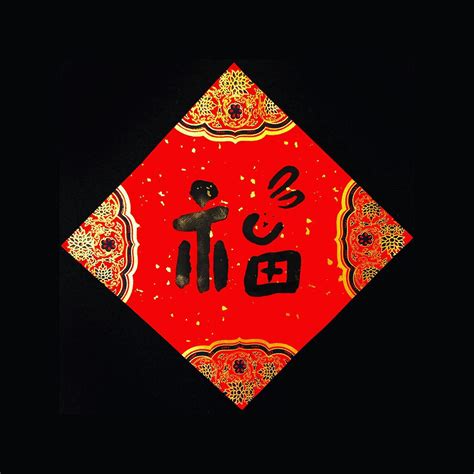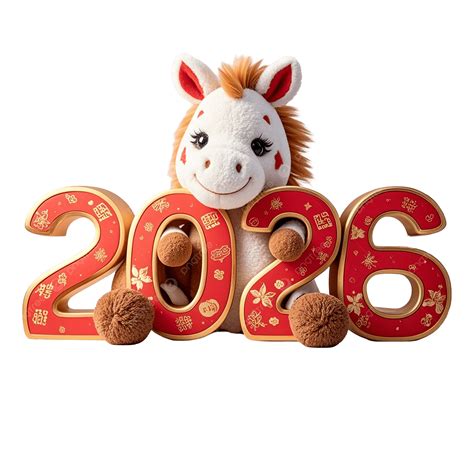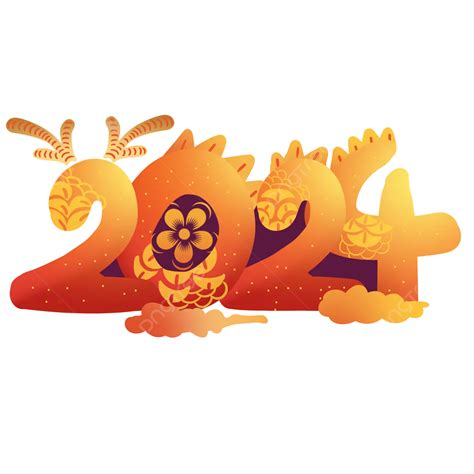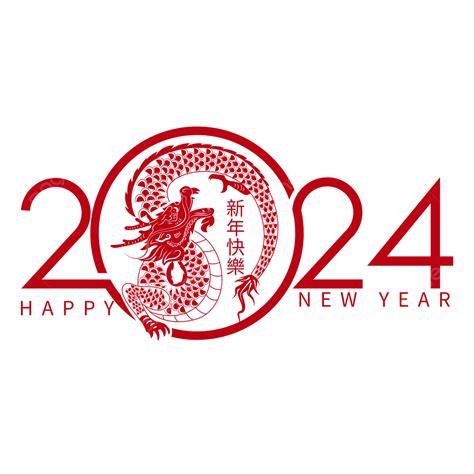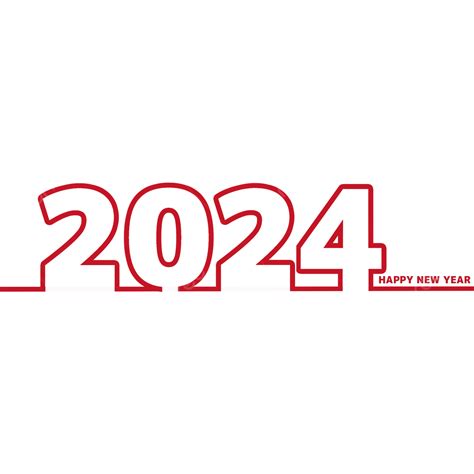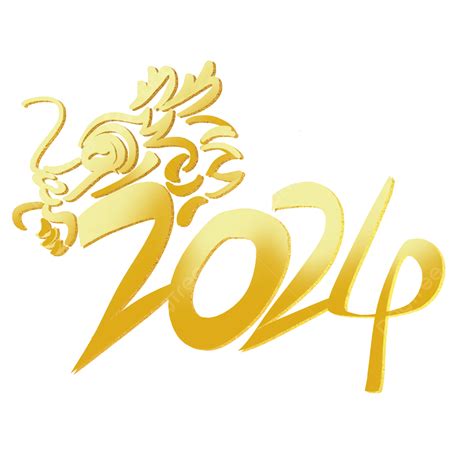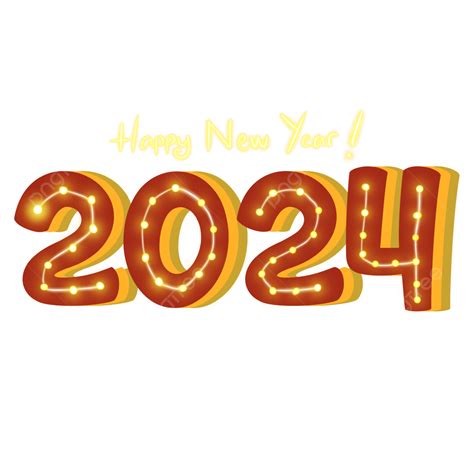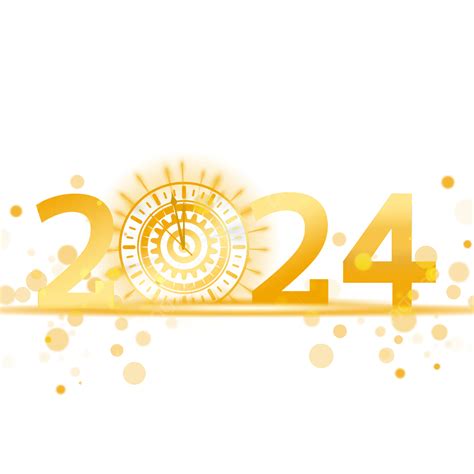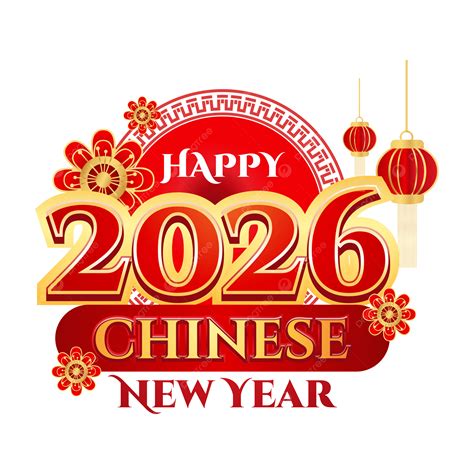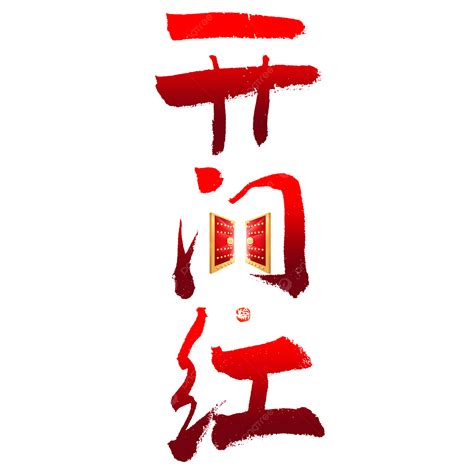
Selecting the perfect fount for Lunar New Year is more than just a stylistic alternative; it is about get the ethnic resonance, joy, and prosperity consort with this vivacious celebration. As we prepare for the festivity, designers oft search for typography that equilibrate traditional elegance with contemporaneous elan. Whether you are crafting invitation, red envelopes, or societal medium graphics, the correct font service as the optical anchor for your content. By understanding how different weight, texture, and letterforms charm the overall aesthetic, you can ensure your projects ponder the warmth and fervor of the Outflow Festival, making every part of communication stand out during this auspicious clip of twelvemonth.
Understanding Typography in Festive Design
The visual words of the Lunar New Year is profoundly rooted in symbolism and tradition. Colors like crimson red and favorable gold are staples, but the composition you match with these elements ascertain the professionalism and emotional impact of your work. When choosing a font for Lunar New Year, take whether you desire to evoke a sense of heritage through calligraphy-inspired stroke or a modern feel with clean, bold sans-serif structures.
Key Characteristics of Lunar New Year Fonts
To choose effectively, look for typefaces that have these specific traits:
- Brush-style texture: These mimic the traditional art of penmanship, add a human touching to digital designs.
- High-contrast strokes: These fonts oft feel refined and advanced, arrant for formal invitations or high-end branding.
- Bold, geometric shapes: Ideal for modernistic digital advertisement where legibility at small sizing is paramount.
- Decorative flourishes: These can add a sentiency of sumptuosity and festivity, though they should be habituate slenderly to keep discernability.
Recommended Typography Styles
Different application take different font weights and mode. Use the table below as a nimble guidebook to selecting the appropriate category for your specific project want.
| Coating | Recommended Style | Ocular Effect |
|---|---|---|
| Red Envelopes (Hongbao) | Traditional Chirography | Authentic and festive |
| Digital Social Media Ads | Bold Sans-Serif | Modernistic and attention-grabbing |
| Formal Event Invitations | High-Contrast Serif | Elegant and respectful |
| Retail Signage | Display/Decorative | Playful and up-and-coming |
Balancing Modernity and Tradition
Achieving a balance between old and new is the hallmark of outstanding plan. You might couple a heavy, expressive calligraphical baptistery for a headline with a light, minimalist sans-serif for the body textbook. This demarcation ensures that the substance remains readable while maintaining a gay feel. Always prove your font pairings against a background of sheer red or amber to assure the contrast is sufficient for the hearing to say effortlessly.
💡 Billet: When habituate heavy show baptistery for coping, ensure that your kerning is adjust to preclude characters from jar, especially when using complex script-style lettering.
Technical Tips for Designers
Beyond esthetic choice, technical execution is essential. For mark projects, constantly implant your fonts to avoid fiber substitutions during the printing operation. For web-based content, prioritise web-safe format that load quickly without give the alone fiber of the typeface. If you are using non-standard fibre or intricate glyph, verify that your chosen font supports the specific lyric prerequisite for your mark hearing, especially if you are integrating Taiwanese quality alongside Latin alphabets.
Selecting the right typography importantly advance the impingement of your originative employment during the vacation. By carefully balancing historical calligraphy manner with modernistic design principles, you can create visually stunning materials that capture the centre of renewal and prosperity. Whether you are concentrate on high-contrast serif for elegance or bold show font for excitement, your choices play a pivotal function in transmit the joy of the season to your hearing. Subdue these typographic nuances grant every plan to resonate more deeply with the flavour of the Lunar New Year.